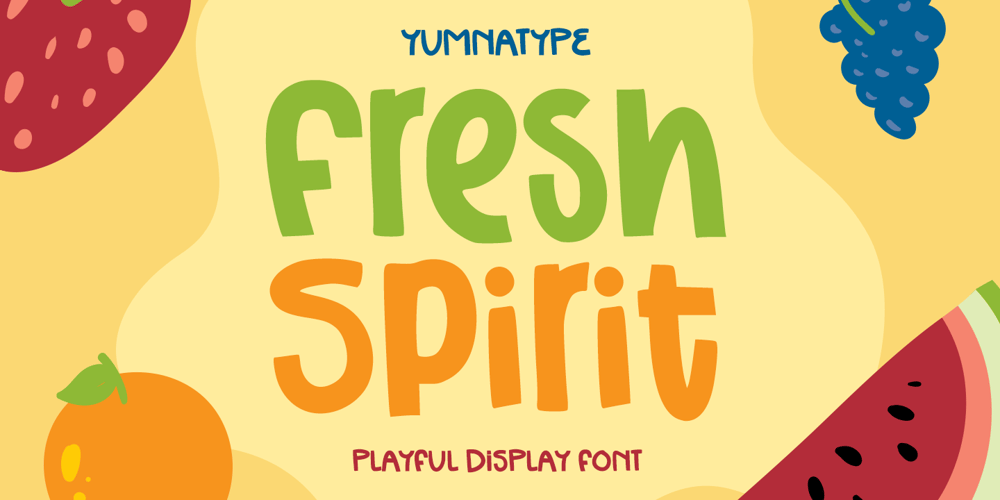
Fresh Spirit
Fresh Spirit font
Fresh Spirit Font Family was designed by Donis Miftahudin and published by Yumna Type. Fresh Spirit contains 1 styles and family package options. It can be a time-wasting process to find a perfect font for your projects that unfortunately may end in unexpected results as you want to stand out your unique designs without spending hours on searching the right font. For that reason, we would like to introduce you to Fresh Spirit.Fresh Spirit is a unique display font in round, twisting styles on the letters’ edges. It is very suitable to apply for products related to food and drink especially fruit due to its fun, cute characteristics. Fresh Spirit font, which provides a clipart in line with the theme as a bonus, will create some soft, fun, adorable nuances and increase visual attractiveness to your designs. In addition, you can enjoy the available features here.Features: Multilingual Supports PUA Encoded Numerals and Punctuations Fresh Spirit fits best for various design projects, such as brandings, headings, magazine covers, quotes, printed products, merchandise, social media, etc. Find out more ways to use this font by taking a look at the font preview.Thanks for purchasing our fonts. Hopefully, you have a great time using our font. Feel free to contact us anytime for further information or when you have trouble with the font. Thanks a lot and happy designing.